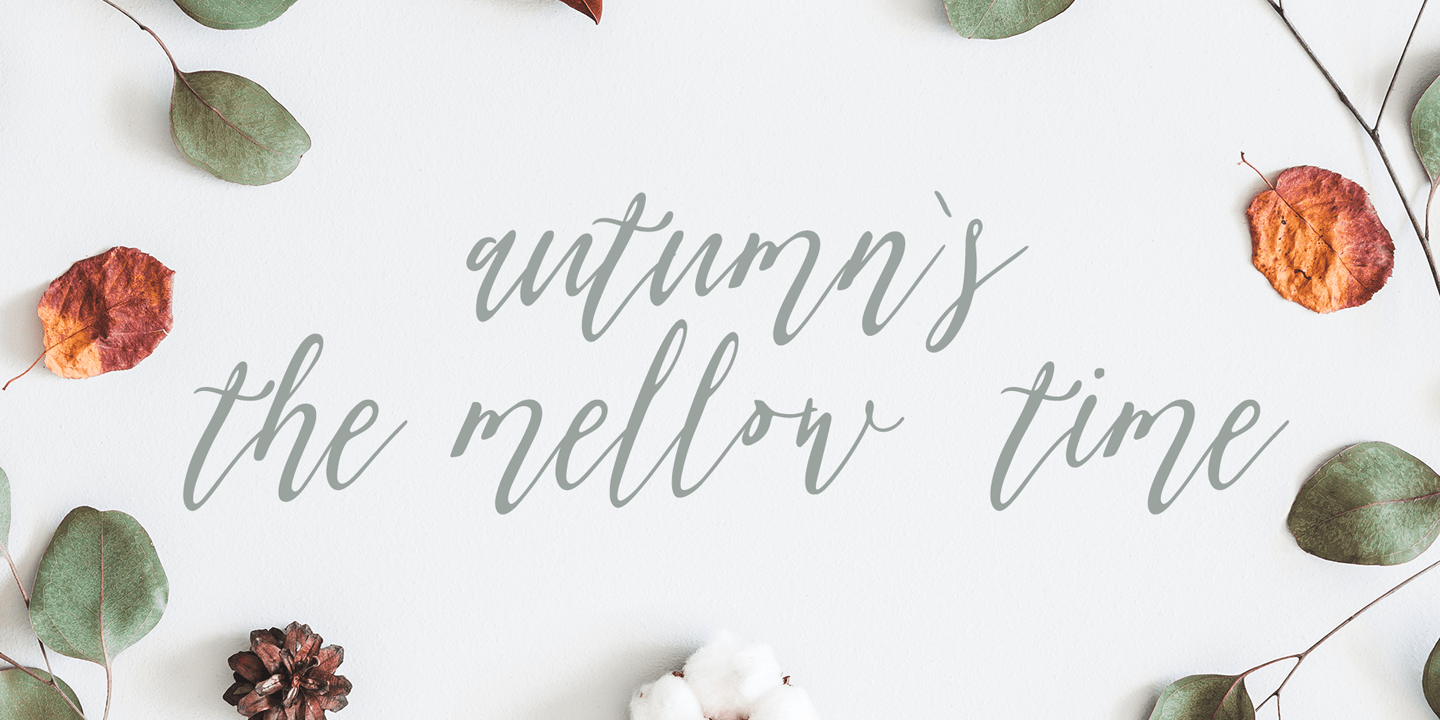
Olis Font
Olis Script Font
This is a stylish, fresh new handwritten script. Olis comes with two weights, numerals, punctuations and some variations on character include OpenType alternates, and common ligatures.